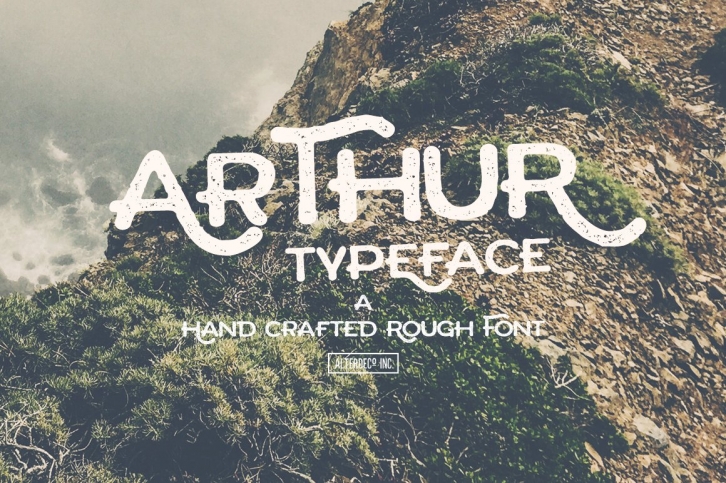
Arthur is a hand drawing font, its perfect for your adventure photography designs, tshirt designs, etc. in zip file you'll find the otf format of the font, and a preview image.